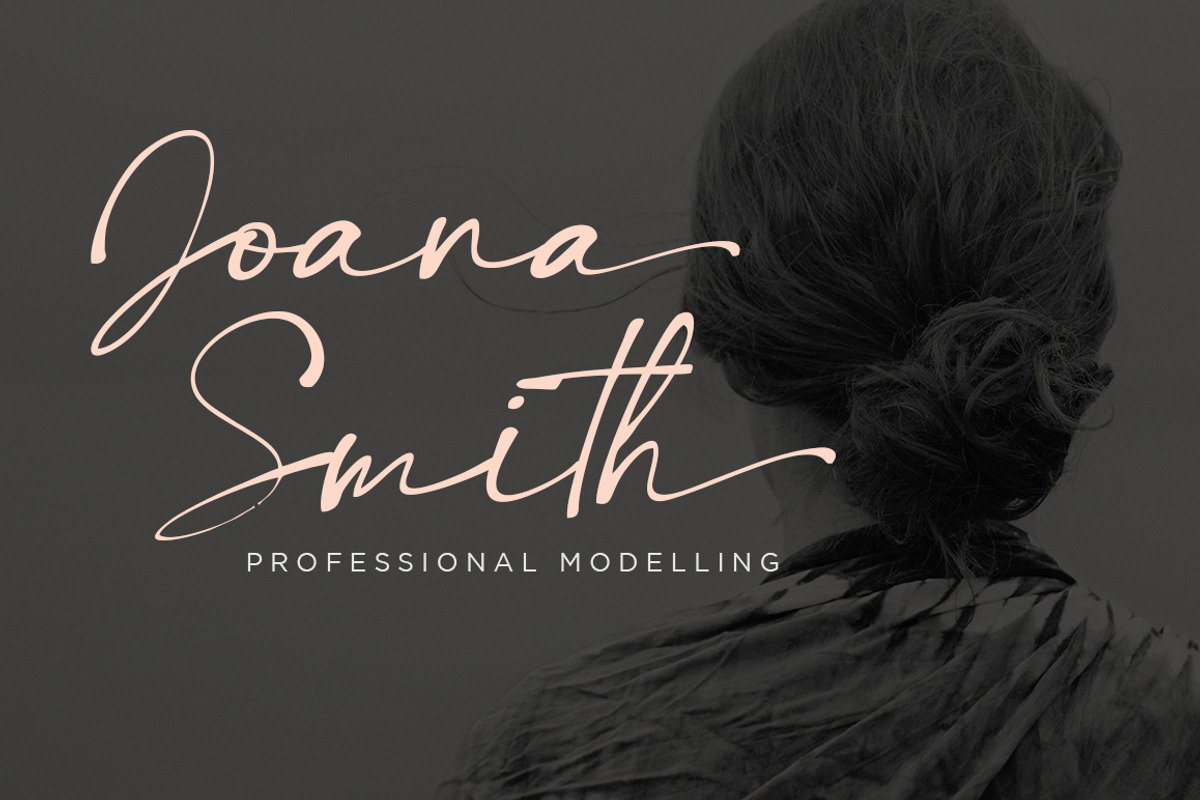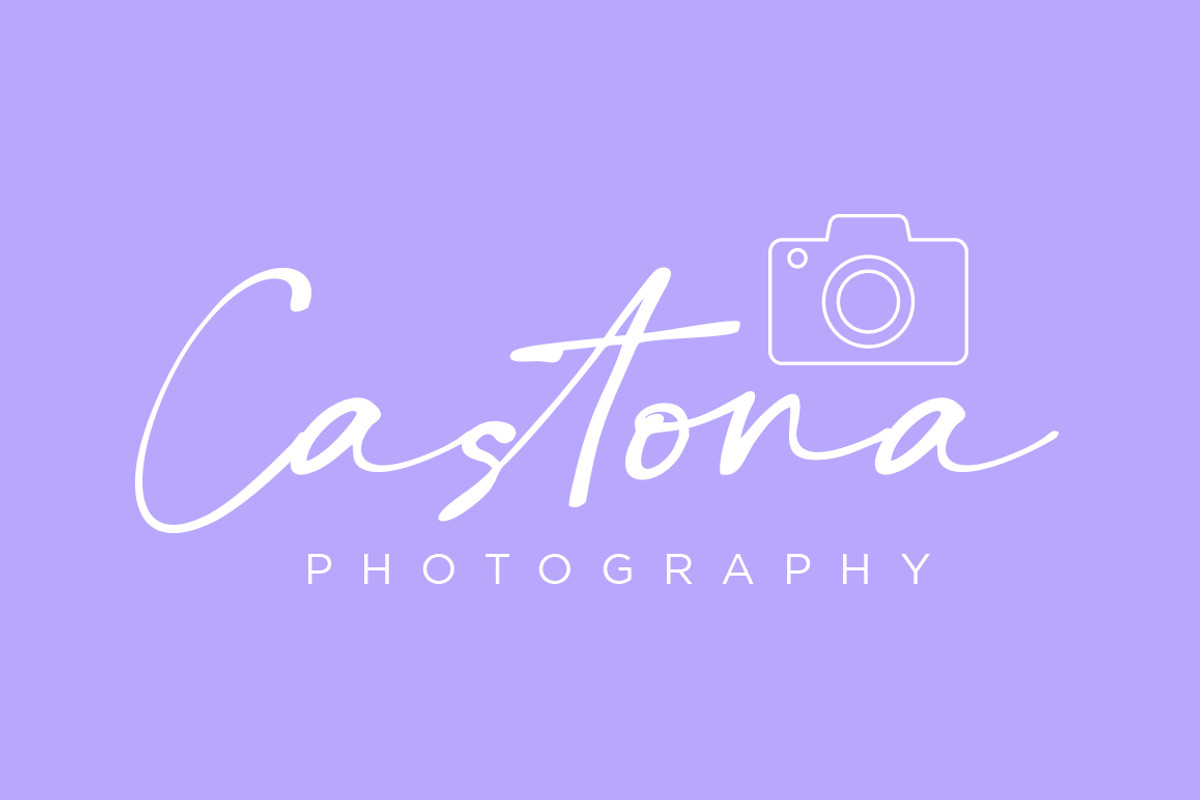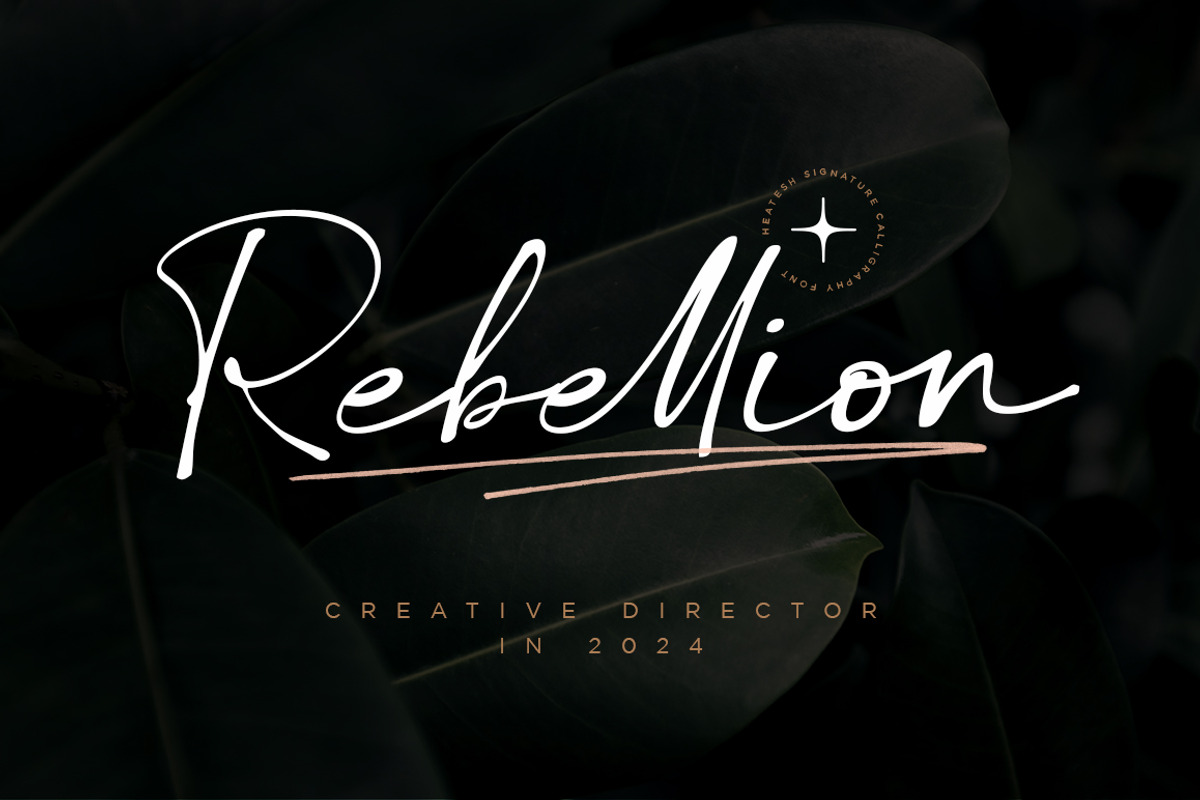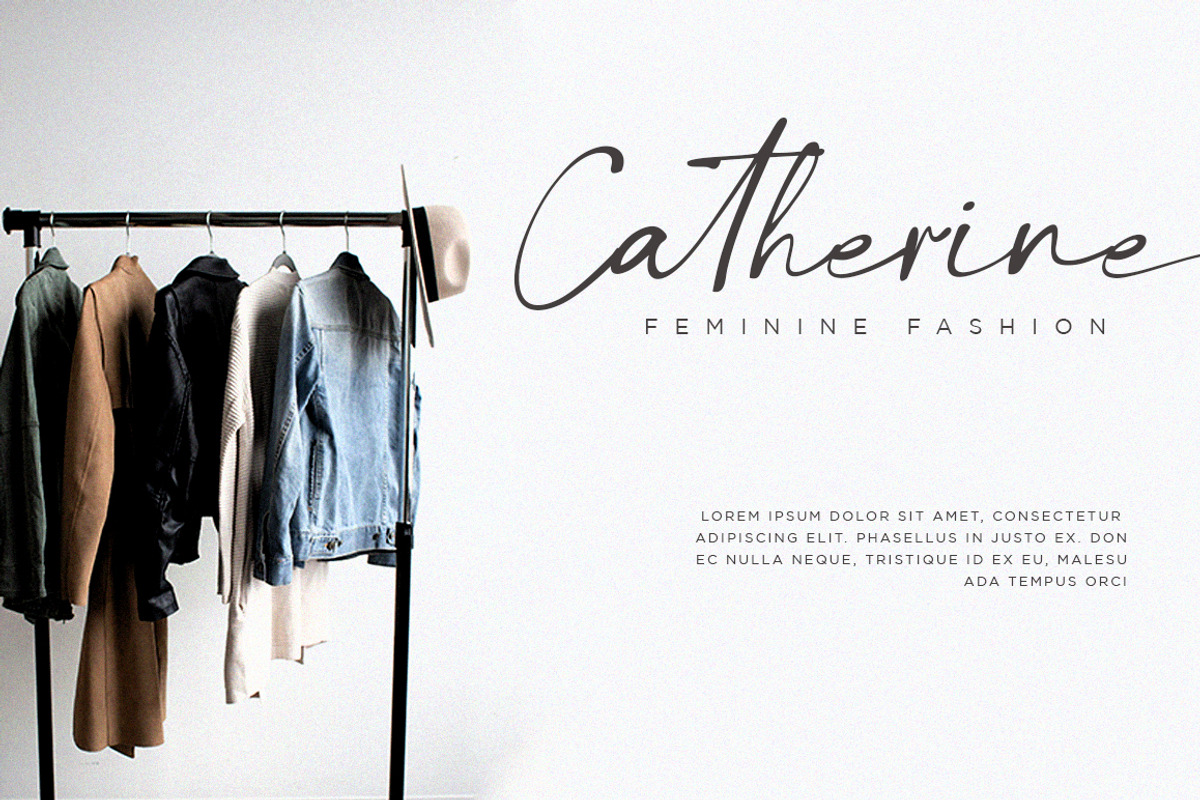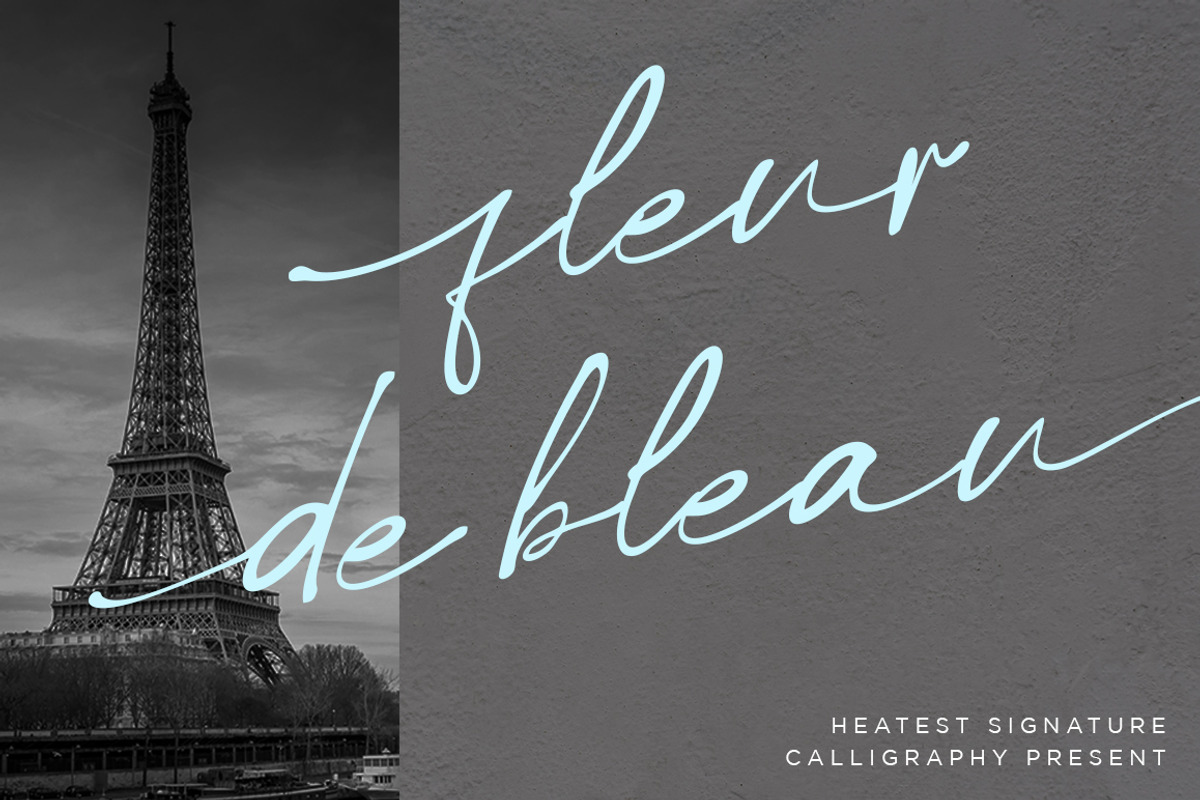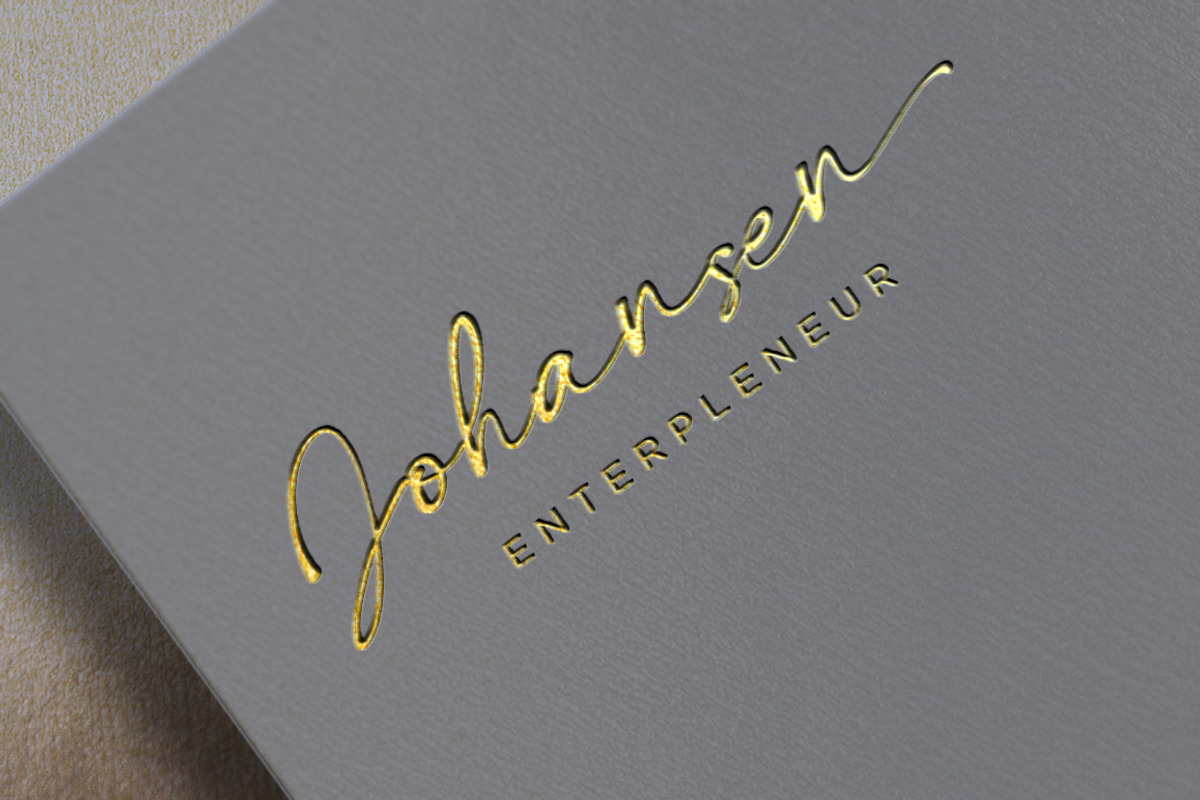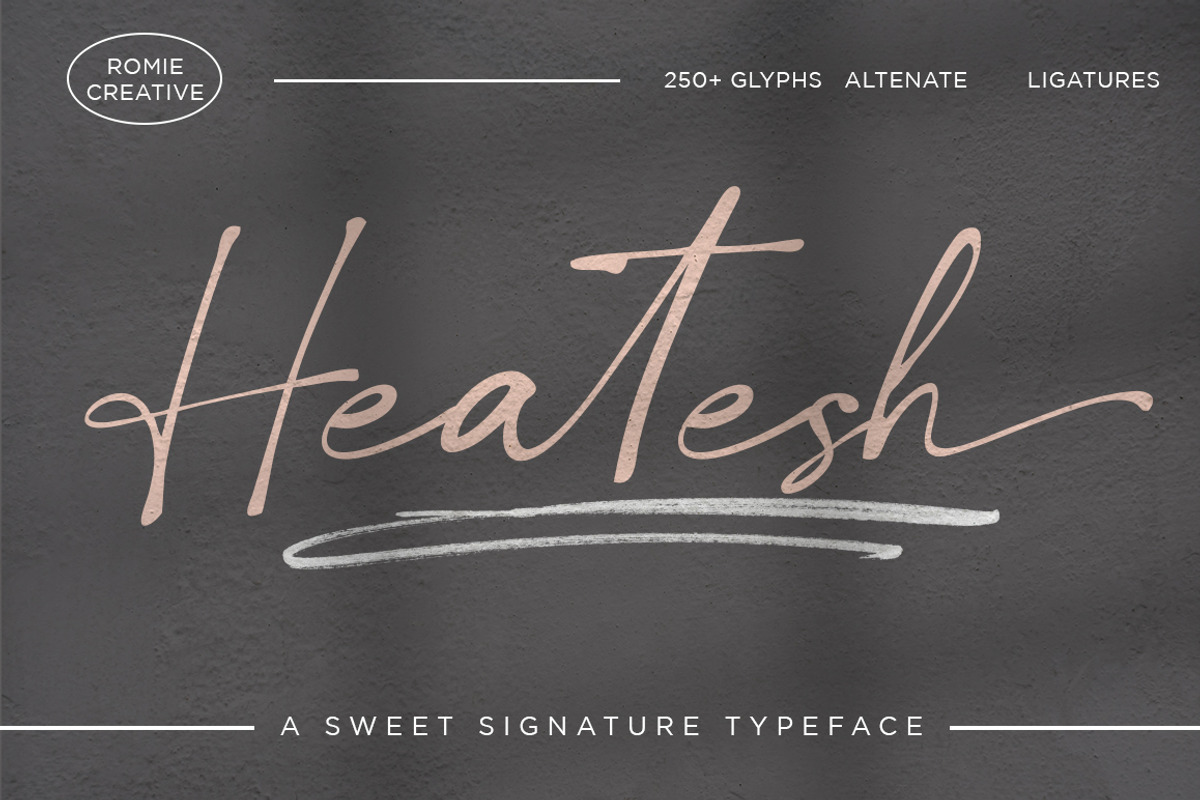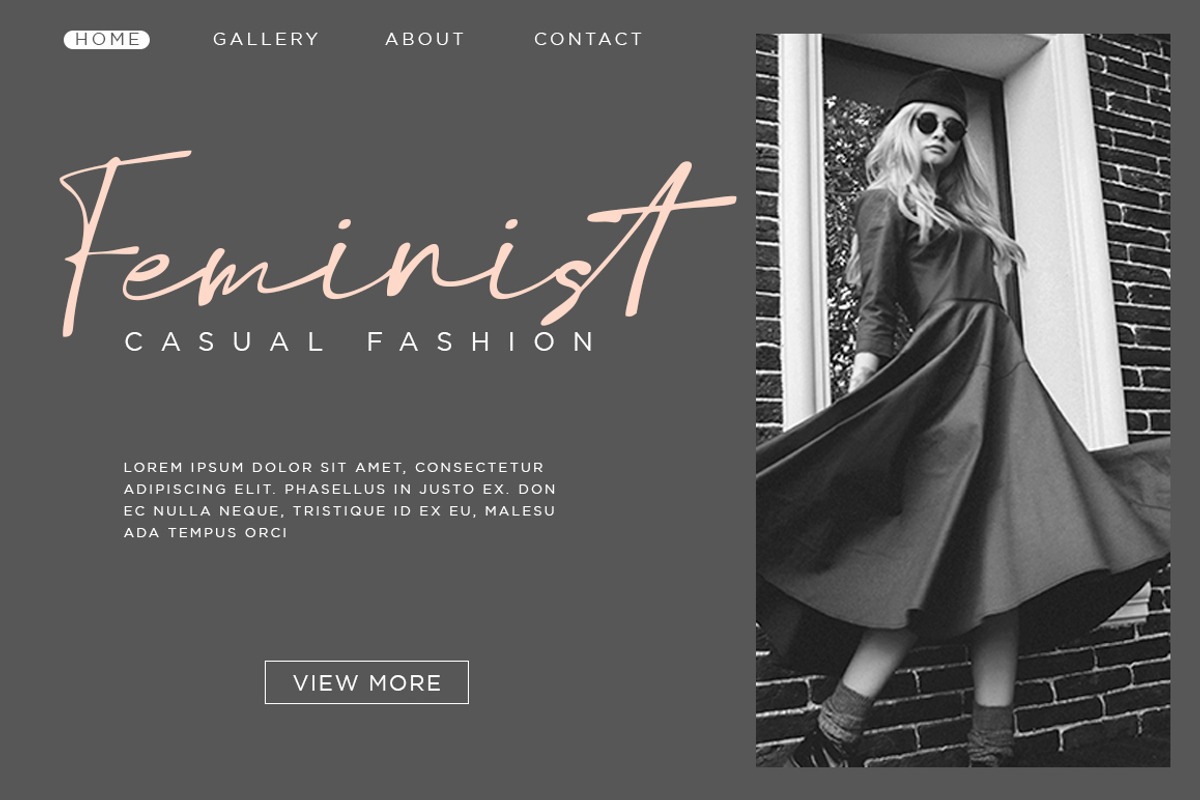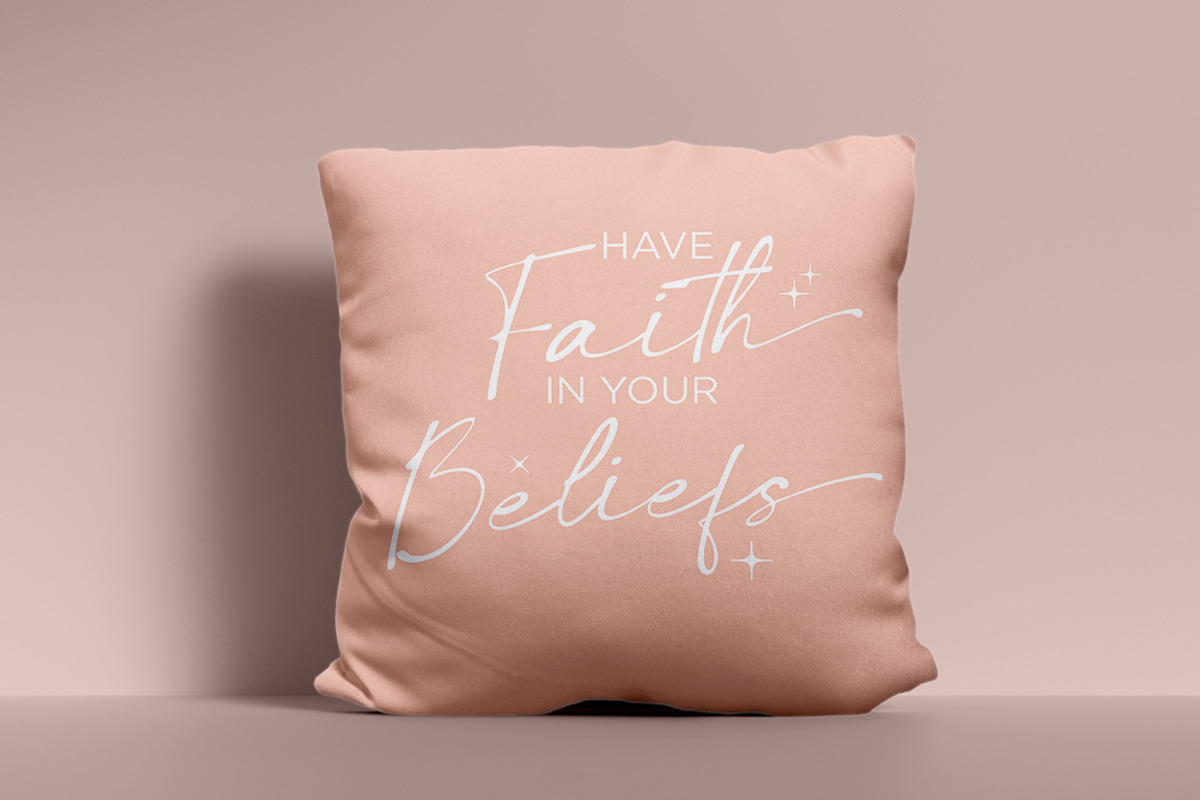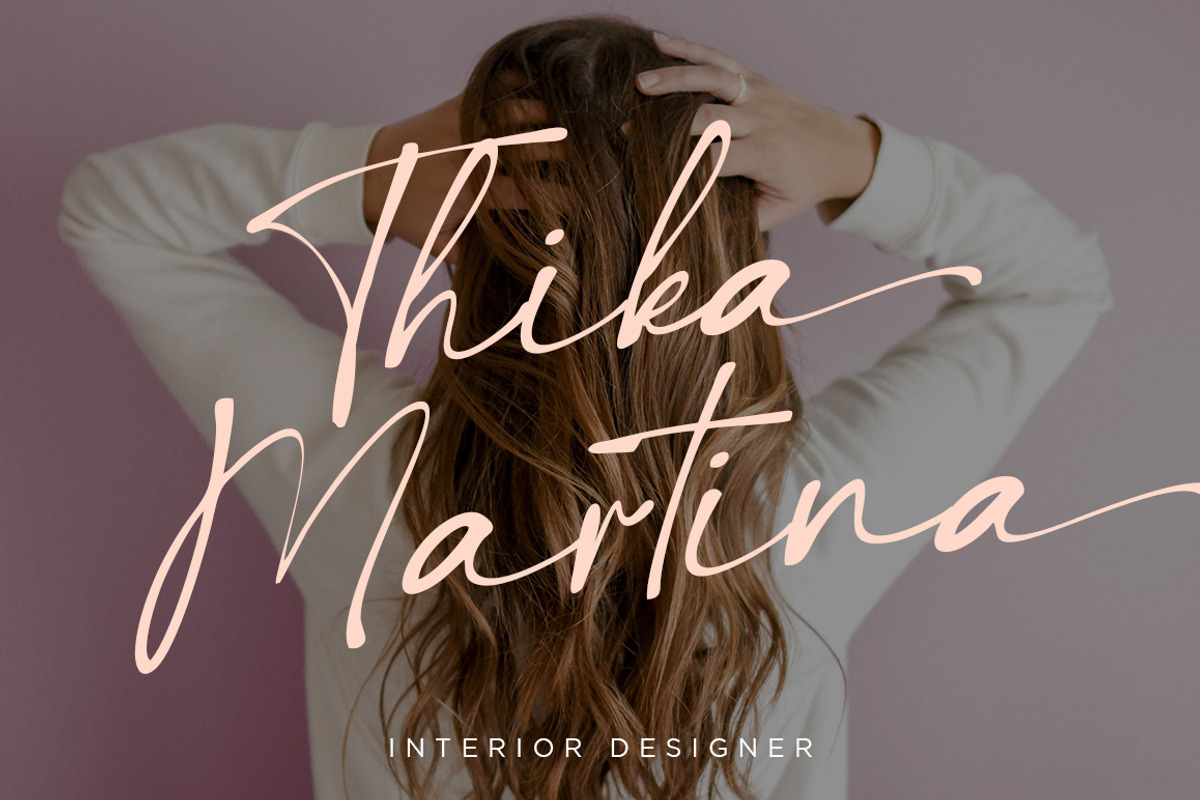
Heatesh Script
Heatesh is a chic modern Calligraphy font with a magical emphasis. I hope this font is suitable for creating signature logos and watermarks for photography studios or wedding invitations, most suitable for initials signatures or brand logos.
I am lovingly and uniquely made!!
Heatesh includes a complete set of beautiful handwritten upper and lower case letters, numbers, various types of punctuation and ligatures. All lowercase letters are accompanied by initial and final strokes, providing a realistic handwriting style. What do you have, darling?